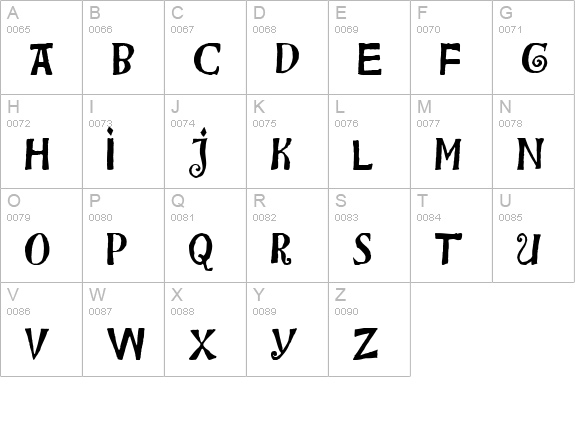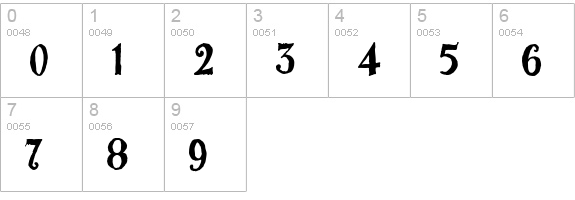
Bensgothic Font Details
Bensgothic font is a stunning and unique typeface that combines Gothic elements with a modern twist. Its intricate details and sharp lines give it a bold and edgy look, making it perfect for projects that require a touch of drama and sophistication. This font is not only visually striking but also versatile, suitable for a wide range of design applications including logos, branding, posters, and more. Whether you're aiming for a gothic aesthetic or simply want to make a statement, Bensgothic font is sure to elevate your work to the next level. The best part? Bensgothic font is available for free download at FontsMarket.com, making it easily accessible for designers and creatives looking to add a touch of flair to their projects without breaking the bank. Don't miss out on this fantastic opportunity to enhance your designs with the bold and captivating Bensgothic font.